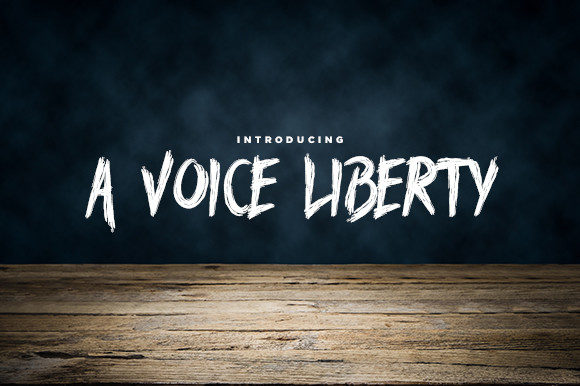
The Designer’s Dream Come True: A Voice Liberty Font
Have you ever been in the middle of a design project, and suddenly, it hits you – the font you’re using just isn’t cutting it? I recall a particularly frustrating experience when I was working on a logo design for a client. The brief was simple: create a bold, eye-catching logo that screamed “liberty” and “freedom.” I scoured the internet for the perfect font, but nothing seemed quite right. That was until I stumbled upon A Voice Liberty.
This amazing brushed display font has been a game-changer for my design projects, and I’m excited to share my experience with you. Whether you’re a designer, crafter, or creative hobbyist, A Voice Liberty has the potential to elevate any creation.
• ✨ Unique Brushed Texture: A Voice Liberty boasts a distinctive brushed texture that adds a touch of personality to any design.
• ✅ Versatility: This font is perfect for logos, branding, and a wide range of creative projects.
• 💥 Impactful: The bold, eye-catching design of A Voice Liberty is sure to make your project stand out.
While A Voice Liberty is an exceptional font, there are a few things to keep in mind:
• ⚠️ Legibility at Small Sizes: As with many display fonts, A Voice Liberty may not be the best choice for body text or small font sizes.
• 🤔 Pairing with Other Fonts: Due to its bold, distinctive design, A Voice Liberty may require some care when pairing with other fonts.
The Story Behind A Voice Liberty
While the exact story behind A Voice Liberty is unknown, it’s clear that this font was designed with creativity and freedom in mind. Imagine a designer, fueled by passion and a desire to create something truly unique, pouring their heart and soul into a font that would inspire others.
Q: What is A Voice Liberty font?
A Voice Liberty is a brushed display font designed for creative projects, logos, branding, and more.
Q: Is A Voice Liberty suitable for body text?
While A Voice Liberty is a beautiful font, it’s best suited for display purposes. For body text, consider a font with better legibility.